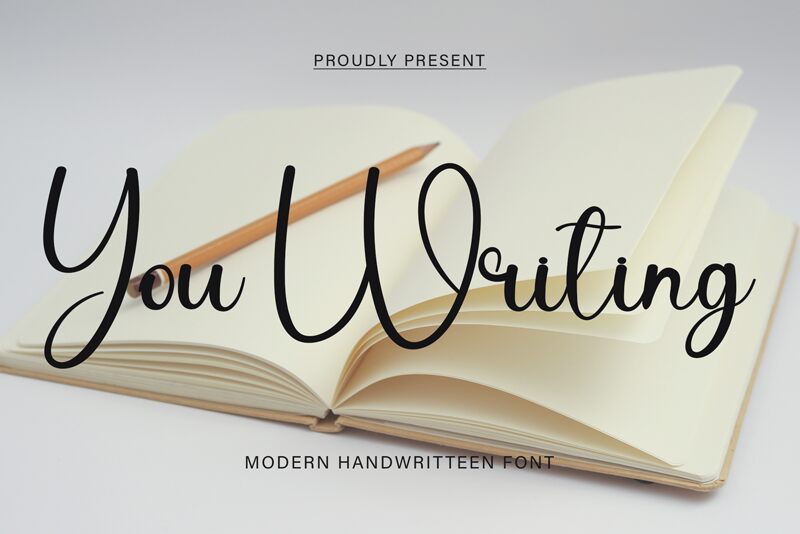
You Writing
With its modern vibe and spotless form, You Writing is the perfect font for adding a touch of elegance to your projects.
Designed by Etik Fatimah, this cool handwritten font draws inspiration from classic calligraphy. Its semi-light weight strikes a balance between thin and thick strokes, creating a versatile and visually appealing style. Whether you're designing wedding invitations, creating stylish logos, or crafting beautiful typography for social media posts, You Writing will enhance the beauty of your work.
Give your projects a sophisticated yet contemporary look with this stunning handwritten font.